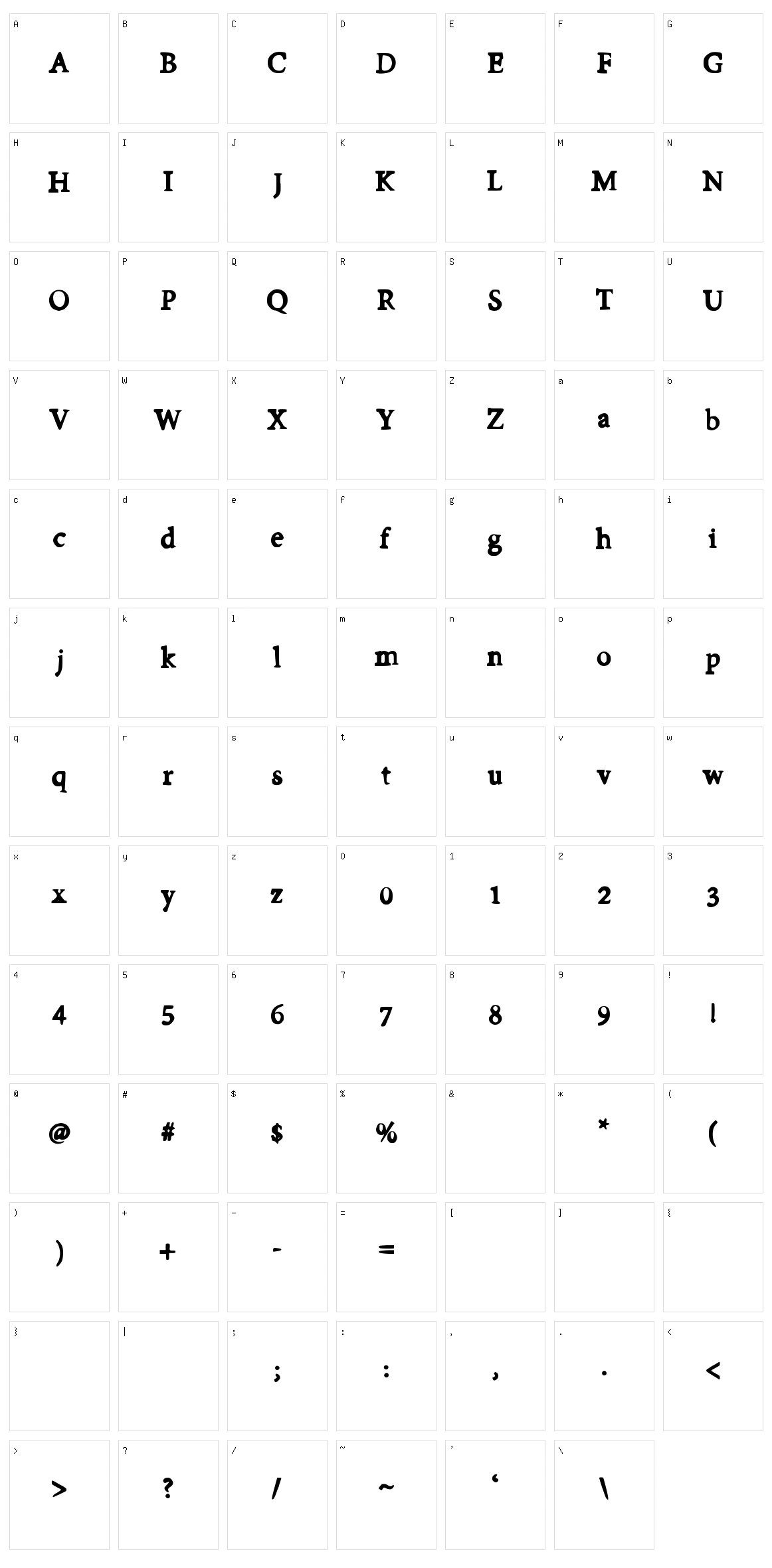
The free font First Day is carefully designed by Leonard Posavec - LeoSupply.co, showcasing a thoughtful balance of creativity and usability and falls under the Typewriter font style. When you download the ZIP file, it contains only 11.95 KB of font files, making it lightweight and quick to download. Please review the license details below to understand permitted usage and distribution rights. If license information is not available, we recommend using this font for personal projects only or contacting the author directly for commercial usage permissions.